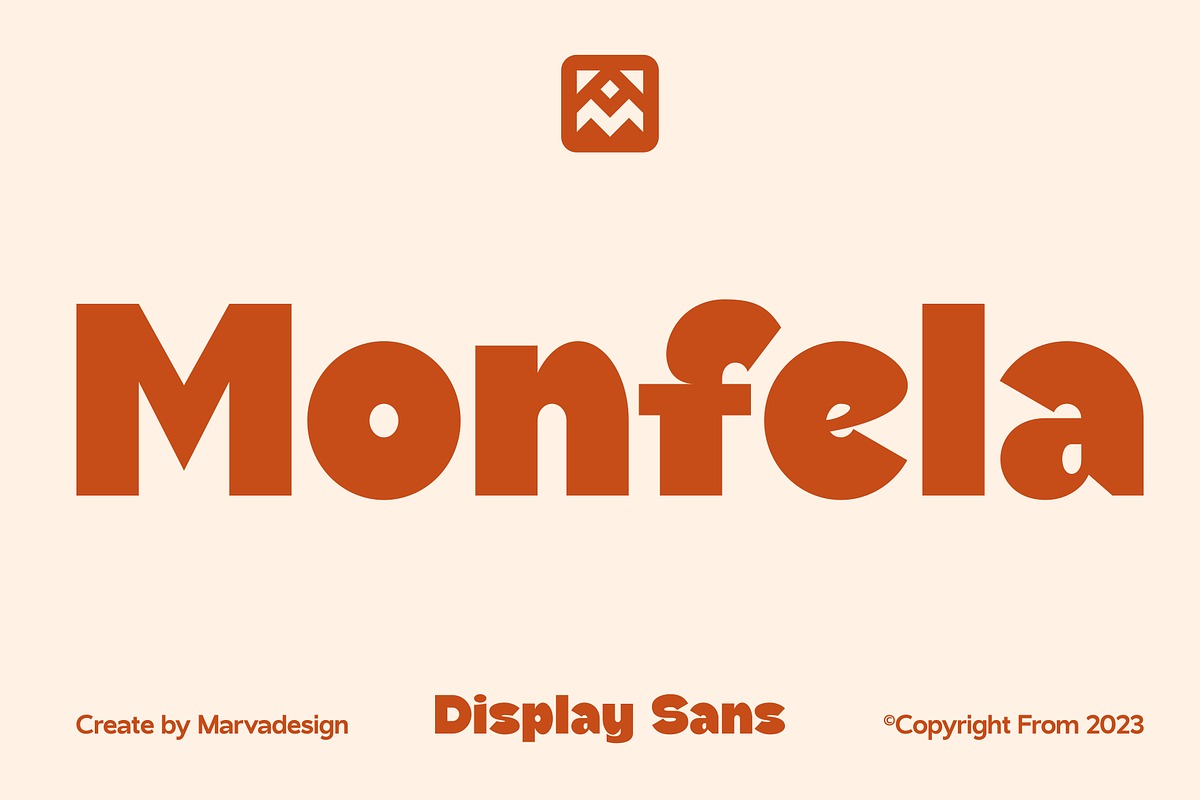
Monfela – Modern Sans Serif Font
Monfela – Modern Sans Serif Font is a stylish typeface that enhances visual appeal and works effortlessly in many design contexts. Monfela Font – A Modern Sans Serif Font is a bold and authentic display font. The font is suitable for any branding project like logo, Template Design, Product and many more. outstanding in a wide range of contexts.